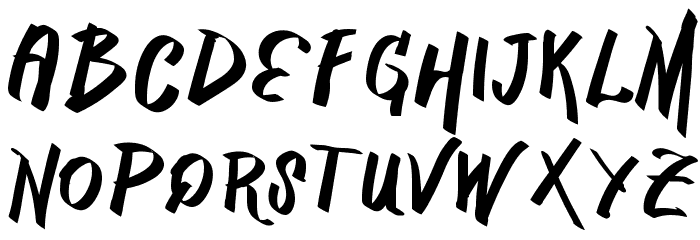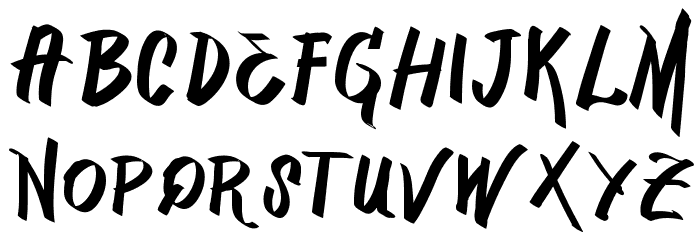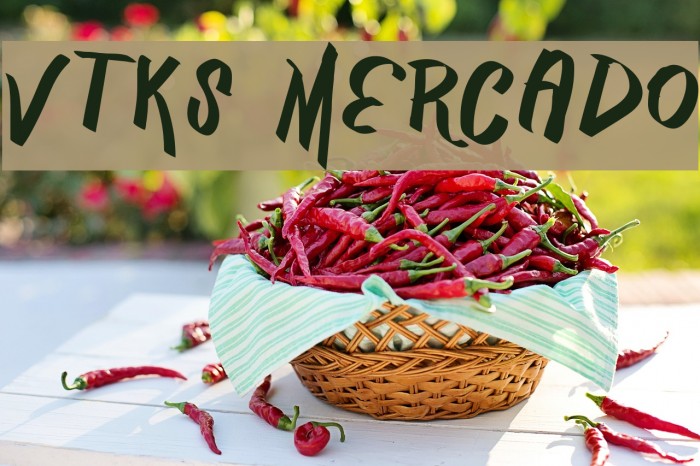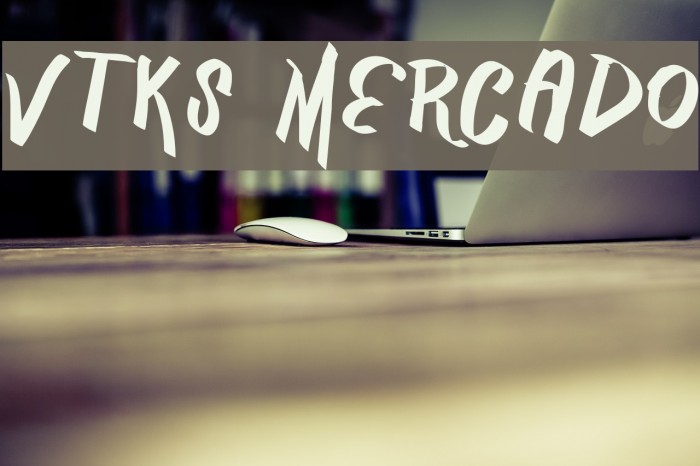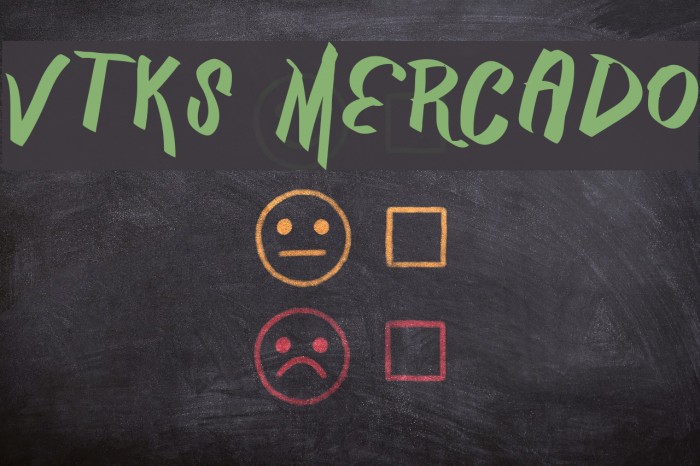
Vtks Mercado Font
This font features a bold and dynamic style with a hand-drawn appearance. The characters exhibit a brush-like texture, giving them an energetic and artistic flair. The uppercase letters are particularly striking, with exaggerated curves and sharp angles that create a sense of movement. The lowercase letters maintain this expressive quality, ensuring consistency throughout the typeface. The numbers and special characters are equally bold, complementing the overall aesthetic. This font's unique style makes it ideal for projects that require a strong visual impact.
A bold, brush-style font with dynamic, hand-drawn characteristics.
- Proposed Projects: Ideal for posters, album covers, branding, and any project needing a bold, artistic touch.